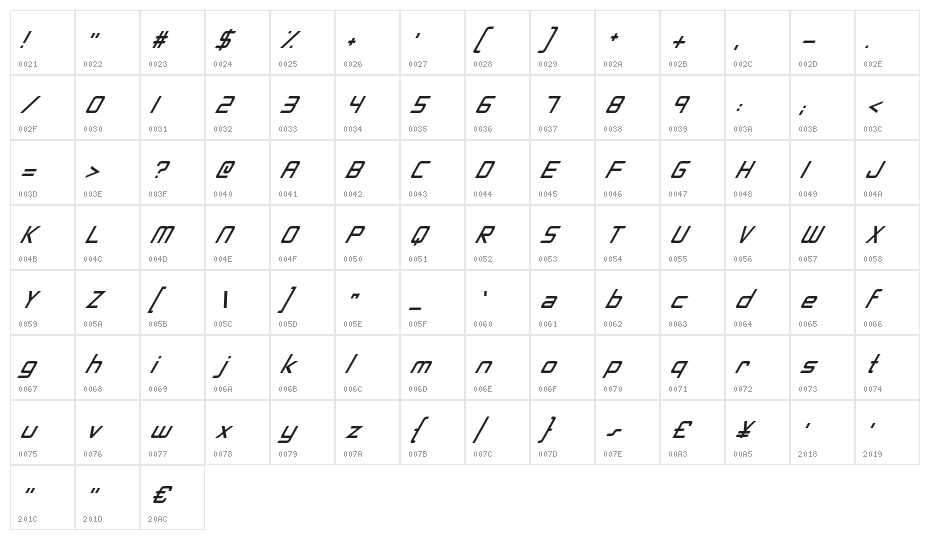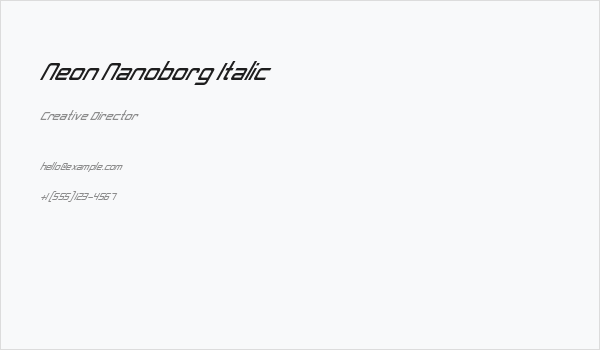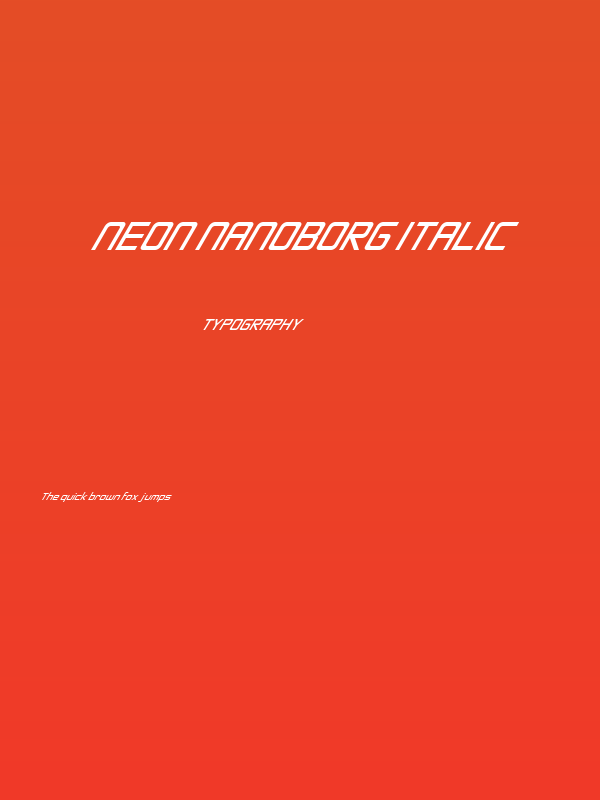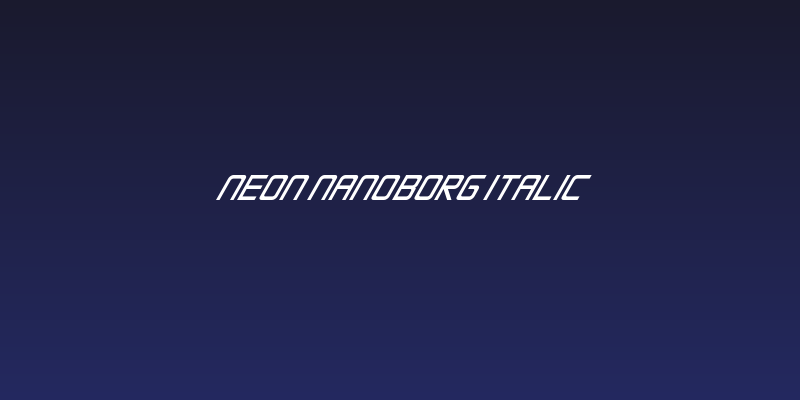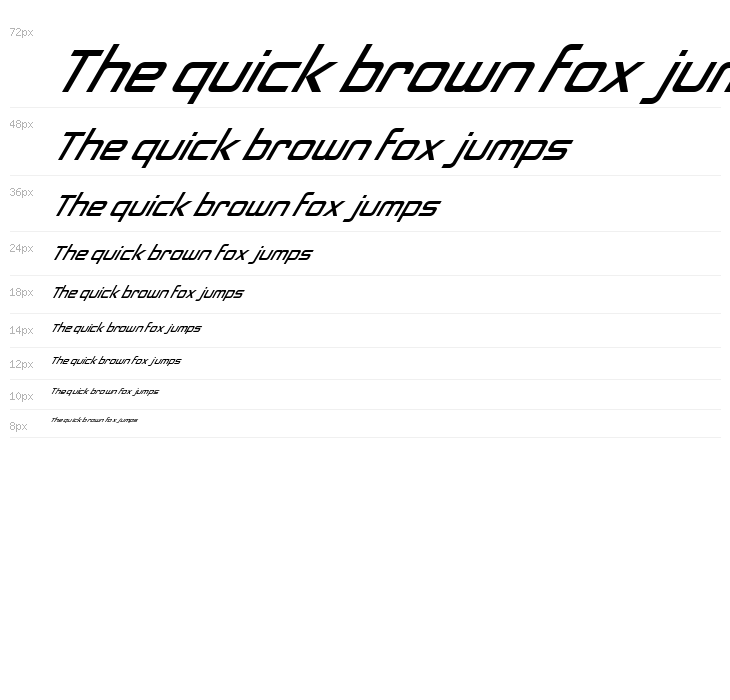
Neon Nanoborg Italic Font
Neon Nanoborg Italic Description
This font features a futuristic and sleek design with a distinct italic slant, giving it a dynamic and forward-moving appearance. The characters are constructed with sharp angles and clean lines, creating a modern and technological feel. The uppercase and lowercase letters maintain a consistent style, with a geometric structure that enhances readability while maintaining a unique aesthetic. The numerals and special characters are designed to match the overall theme, ensuring uniformity across all elements. This font is ideal for projects that require a contemporary and innovative look.
| Use Case | Headlines, Logos, Display text |
| Proposed Projects | Ideal for tech branding, sci-fi themed projects, video game interfaces, and modern advertising. |